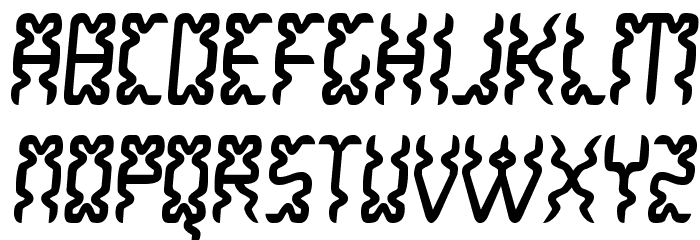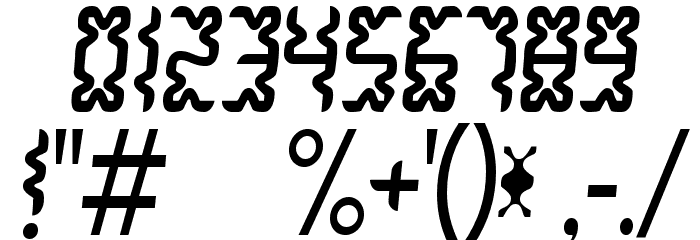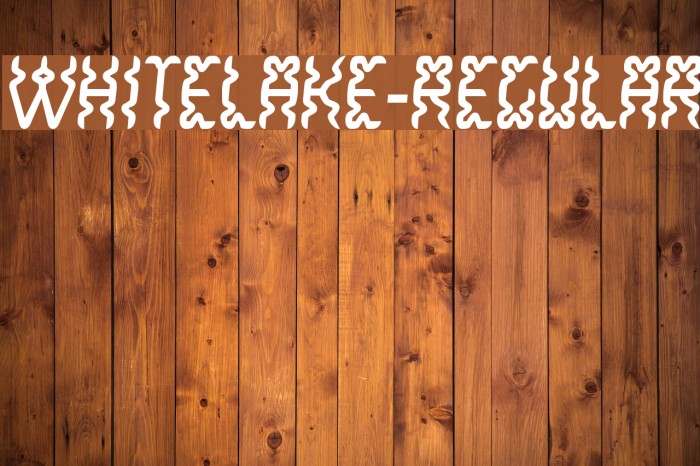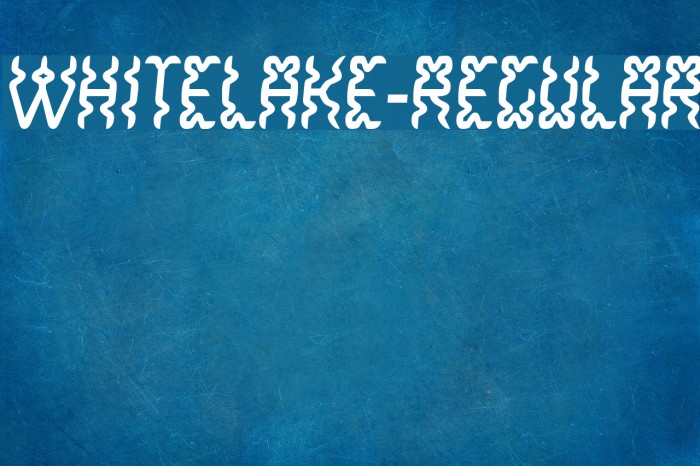
WhiteLake-Regular Font
This font features a highly decorative and unique style, characterized by its intricate, interlocking patterns that form each letter. The design is bold and eye-catching, with a playful yet sophisticated appearance. The characters are crafted with a consistent thickness, creating a uniform look across the alphabet. The font's distinctiveness lies in its artistic flair, making it suitable for creative projects that require a standout typeface. The numbers and special characters maintain the same decorative theme, ensuring cohesion throughout any text. This font is ideal for projects that aim to capture attention and convey a sense of creativity and elegance.
A decorative font with intricate, interlocking patterns and a bold, artistic style.
- Proposed Projects: Ideal for branding, posters, album covers, and any project requiring a unique, artistic touch.